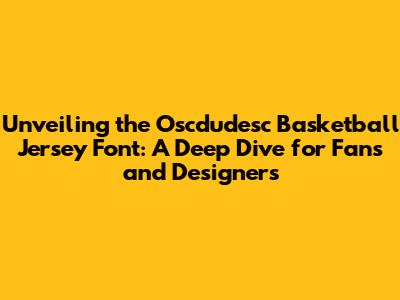
Hey everyone, let's talk about something super cool that adds a whole lot of personality to your favorite basketball team's gear: the Oscdudesc basketball jersey font! You know, those iconic numbers and letters that scream team spirit and make your jersey instantly recognizable. Whether you're a die-hard fan looking to understand the details of your team's look, or a budding designer wanting to capture that authentic basketball vibe, diving into the world of jersey fonts is seriously fascinating. We're not just talking about slapping any old text on fabric; we're talking about a carefully chosen typeface that represents the team's history, its energy, and its brand. It's like the team's signature, etched in thread! This article is your ultimate guide to everything Oscdudesc basketball jersey font. We'll break down what makes these fonts tick, how they evolve, and why they're so darn important in the grand scheme of basketball aesthetics. Get ready to have your mind blown by the power of typography in sports!
The Anatomy of a Winning Basketball Jersey Font
So, what exactly goes into making a basketball jersey font a winner? It’s not just about looking good, though that's a huge part of it, guys. A great Oscdudesc basketball jersey font needs to be bold, legible, and project a sense of power and athleticism. Think about it: players need to be identifiable from across the court, and fans need to recognize their heroes instantly. This means clean lines, strong strokes, and often, a unique flair that sets the team apart. We're talking about fonts that are usually custom-designed or heavily modified to reflect the team's identity. They often incorporate sharp angles, dynamic curves, or even subtle nods to the team's mascot or city. For instance, a team with a lion mascot might have a font with a slightly fierce, almost claw-like serif, while a team representing a futuristic city might opt for a sleek, angular design. The primary goal is readability from a distance, which is why you rarely see overly decorative or script-style fonts on the front of a jersey. Simplicity and impact are key. Furthermore, these fonts have to look good on different materials and under various lighting conditions. They need to stand up to the rigor of the game and still look sharp. It’s a delicate balance between artistic expression and practical application. The Oscdudesc basketball jersey font is therefore a carefully curated blend of aesthetic appeal and functional necessity, ensuring that every number and letter contributes to the overall visual narrative of the team. It’s the unsung hero of jersey design, working tirelessly to convey team pride and player identity with every stitch.
Why Custom Fonts Rule the Court
When we talk about the Oscdudesc basketball jersey font, we're often talking about custom creations. Why? Because standard fonts just don't cut it for professional sports teams. Teams want something unique, something that screams their brand. This is where custom typography comes in. Designers work closely with teams to develop fonts that perfectly embody their spirit. This often involves tweaking existing fonts or creating entirely new ones from scratch. Think about the iconic fonts you've seen across different eras of basketball – they are almost always unique to that franchise. This exclusivity builds brand recognition and fan loyalty. A custom font becomes part of the team's DNA, as recognizable as their logo or team colors. It's a powerful branding tool that differentiates them from competitors. The process involves understanding the team's history, their values, and their target audience. Is the team known for its aggressive play? The font might be sharp and angular. Are they a classic, storied franchise? The font might have a more traditional, yet strong, feel. The Oscdudesc basketball jersey font isn't just a random choice; it's a strategic decision. These fonts need to be versatile too, working across home and away jerseys, alternate uniforms, and even merchandise like t-shirts and hats. A well-designed custom font ensures consistency and strengthens the overall brand image. It’s an investment in the team's identity, creating a visual language that resonates with players and fans alike. The goal is to create a font that not only looks good but also tells a story, reinforcing the team's legacy and future aspirations. It’s this dedication to unique branding that elevates Oscdudesc basketball jersey font choices beyond mere text into the realm of iconic design elements.
Legibility and Impact: The Font's Primary Mission
The absolute number one priority for any Oscdudesc basketball jersey font is legibility. Seriously, guys, if you can't read the number or the name easily, the font has failed its mission. In the fast-paced world of basketball, players, coaches, referees, and fans all need to identify individuals quickly. This means fonts need to be clear, crisp, and easy to distinguish, even from a distance or on a fast-moving screen. Think about the visual noise of a game – the players moving, the ball in play, the crowd cheering. Amidst all this, the jersey numbers and names have to stand out. This is why you'll typically see sans-serif fonts, which are generally cleaner and easier to read than serif fonts. The strokes are usually thick and uniform, minimizing confusion between similar characters like 'I' and '1', or 'S' and '5'. But legibility doesn't mean boring! Teams often inject personality through subtle design elements. This could be unique shaping of the numbers, like slightly wider '8's or more angular '7's, or incorporating small design flourishes that tie into the team's branding. The Oscdudesc basketball jersey font aims to strike that perfect balance between being highly readable and visually appealing. It’s about making a strong, immediate impact. When a player streaks down the court, you want their number to be instantly recognizable. That’s the power of a well-chosen, legible font. It enhances the viewing experience and ensures that the focus remains on the game and the athletes. This focus on clarity is paramount, ensuring that the font serves its core purpose effectively under all conditions, making it a critical component of the jersey's overall design and functionality. Ultimately, the Oscdudesc basketball jersey font is designed for maximum impact and immediate recognition, a true testament to form following function in sports apparel.
Evolution of Jersey Fonts: From Simple to Sophisticated
Basketball jersey fonts have come a long way, evolving from very basic designs to the highly sophisticated and customized typefaces we see today. Initially, jerseys featured simple, block-style numbers. Think back to the early days of the NBA – the fonts were utilitarian, prioritizing basic readability above all else. They were functional, sure, but they lacked the distinct branding and personality we associate with modern sports apparel. As the league grew and marketing became more sophisticated, teams started to recognize the potential of their jerseys as a branding canvas. The Oscdudesc basketball jersey font of earlier eras was often dictated by the printing technology available and the aesthetic trends of the time. We saw the introduction of serifs, slight embellishments, and more stylized numbers. The 80s and 90s, in particular, saw a surge in creative and sometimes even flamboyant font designs, reflecting the era's bold fashion and energetic basketball. Teams experimented with italicized fonts, outlined numbers, and unique shapes that tried to capture the speed and dynamism of the game. This era laid the groundwork for the hyper-customized approach prevalent today. Now, with advanced design software and manufacturing techniques, teams can create incredibly intricate and unique fonts. The Oscdudesc basketball jersey font today is often a product of extensive research and development, aiming to be not just readable but also a powerful visual representation of the team's identity and values. From the clean, modern designs of some teams to the retro-inspired looks of others, the evolution shows a clear trend towards personalization and brand storytelling through typography. It’s a fascinating journey that mirrors the growth and commercialization of basketball itself, transforming the humble jersey number into a key element of a team's visual identity and legacy.
Iconic Fonts That Defined Eras
Some Oscdudesc basketball jersey font choices have become so iconic that they're instantly recognizable, transcending the sport itself. Think about the Chicago Bulls' font during their championship runs in the 90s. That strong, slightly condensed, no-nonsense typeface perfectly matched the team's dominant and determined playing style. It was simple, yet incredibly effective and powerful. Then you have teams like the Los Angeles Lakers, whose classic, clean font has remained largely consistent, evoking a sense of tradition, excellence, and Hollywood glamour. It’s a font that just feels like royalty. Even the Boston Celtics' distinct font, with its slight quirks and classic feel, is deeply intertwined with their storied history and numerous championships. These aren't just letters; they are symbols of dynasties, legendary players, and unforgettable moments. The evolution of the Oscdudesc basketball jersey font has given us many such memorable examples. Each iconic font tells a story about the team's era, its philosophy, and its place in basketball history. They become part of the fan's identity, representing not just a team, but a collective memory and passion. These fonts are carefully chosen to resonate with the team's image, whether it's fierce, classic, or innovative. The enduring popularity of these specific typefaces highlights the significant impact that thoughtful font design can have on brand recognition and fan connection within the realm of professional sports. They are testaments to the power of visual identity in sports.
Modern Trends: Sleek, Bold, and Tech-Inspired
Today's Oscdudesc basketball jersey font landscape is dominated by a few key trends: sleekness, boldness, and a hint of tech-inspired design. Teams are pushing the boundaries of what a jersey font can be, often opting for cleaner, more modern aesthetics. This means sharp lines, geometric shapes, and a minimalist approach that emphasizes clarity and impact. Many fonts feature a subtle futuristic feel, perhaps inspired by the cutting-edge technology used in the game or the urban landscapes many teams represent. Think about fonts with precise angles, sometimes almost sharp enough to cut, or unique treatments of common letters and numbers to make them stand out. The goal is often to convey speed, precision, and innovation. Boldness is still king, but it’s often expressed through refined design rather than overt flashiness. We see thicker numerals and lettering that command attention without being cluttered. Negative space is often used strategically within the characters to create visual interest and enhance legibility. Furthermore, many teams are incorporating subtle graphic elements or unique serifs that tie directly into their branding, like incorporating a team's signature color gradient or a pattern inspired by their logo. The Oscdudesc basketball jersey font today is a sophisticated piece of graphic design. It needs to look good on screen, in print, and on the athlete. This blend of modern design principles, technological influence, and a continued focus on legibility and team identity defines the current era of basketball typography. It's all about creating a look that is both timeless and cutting-edge, ensuring the team stands out in a highly competitive visual landscape.
Choosing the Right Font: What Teams Consider
So, what's the secret sauce when teams decide on their Oscdudesc basketball jersey font? It's a surprisingly complex decision-making process, guys! It's not just about picking something that looks cool. Several factors come into play to ensure the font aligns perfectly with the team's brand identity and practical needs. Firstly, brand alignment is crucial. The font must reflect the team's personality, history, and market. Is it a legacy franchise that needs a classic, established look, or a newer team aiming for a modern, edgy vibe? Secondly, legibility and scalability are non-negotiable. As we've discussed, the font needs to be crystal clear from the nosebleed seats to a close-up TV shot. It also needs to scale well across different applications, from the main jersey to merchandise and digital platforms. Uniqueness is another major consideration. Teams want a font that sets them apart from the competition. This often leads to custom-designed or heavily modified typefaces rather than off-the-shelf options. Think about how iconic team fonts become synonymous with the franchise itself. Manufacturing feasibility also plays a role. The chosen font must be reproducible effectively using current jersey production techniques, whether it's screen printing, embroidery, or heat transfer. The complexity of the design, the number of colors, and the type of stitching can all impact this. Finally, player and fan feedback might even be considered. While the ultimate decision rests with the team's marketing and branding departments, understanding how the font is perceived by those closest to the team can be valuable. The Oscdudesc basketball jersey font is therefore a result of careful deliberation, balancing artistic vision with practical requirements to create a visual identity that is both impactful and enduring. It's a strategic choice that goes far beyond simple aesthetics, embedding the team's essence into every numeral and letter.
The Role of the Mascot and Team Colors
Ever noticed how the Oscdudesc basketball jersey font sometimes seems to echo the team's mascot or colors? That's no accident, folks! These elements are often woven into the very fabric of the font's design. A team with a fierce mascot, like a hawk or a wolf, might incorporate sharper angles, pointed serifs, or a more aggressive stance in their typography. This visually reinforces the mascot's characteristics and the team's competitive spirit. Think jagged edges, dynamic slants, or bold, commanding forms. On the flip side, a team with a more playful or classic mascot might opt for a font that's slightly more rounded, stable, or traditional. The team's colors also heavily influence font design. While the numbers and letters themselves are often a primary team color, the outlines and embellishments are where the other colors come into play. These secondary colors can be used to create contrast, add depth, or simply reinforce the team's palette. Sometimes, a specific color combination used in the font becomes so strongly associated with the team that it's instantly recognizable. For example, the Lakers' purple and gold, or the Celtics' green and white, are integral to their jersey's visual identity, and the font plays a key role in how these colors are presented. The Oscdudesc basketball jersey font is thus often a carefully orchestrated visual symphony, where the typography harmonizes with the mascot and color scheme to create a cohesive and powerful brand identity. It’s about creating a unified look that fans can instantly connect with and rally behind, making the jersey more than just clothing – it’s a banner of team pride.
Balancing Tradition and Innovation
One of the trickiest balancing acts in designing the Oscdudesc basketball jersey font is blending tradition with innovation. Many teams have long histories, and their fans have grown accustomed to certain visual cues. Suddenly changing a beloved font can alienate a portion of the fanbase. On the other hand, standing still can make a team look outdated in a league that thrives on constant evolution and fresh energy. This is where clever design comes in. Teams often look to modernize classic fonts rather than replace them entirely. This might involve cleaning up the lines, adjusting the proportions for better digital display, or adding subtle new details that feel contemporary without sacrificing the original character. For instance, a font that was popular in the 70s might be reinterpreted with sharper corners or a slightly bolder weight to feel more current. The goal is to retain the essence of what makes the font traditional and recognizable while injecting elements of modern design principles. Innovation can also come in the form of unique treatments or special edition fonts for alternate jerseys or anniversary celebrations. These allow teams to experiment with bolder, more avant-garde designs without altering their primary identity. The Oscdudesc basketball jersey font strategy often involves a primary font that honors heritage and secondary options that explore new creative territories. This approach ensures the team respects its past while confidently stepping into the future, keeping their visual identity dynamic and appealing to both long-time supporters and new generations of fans. It’s a delicate dance that requires a deep understanding of the team's legacy and the evolving landscape of sports branding.